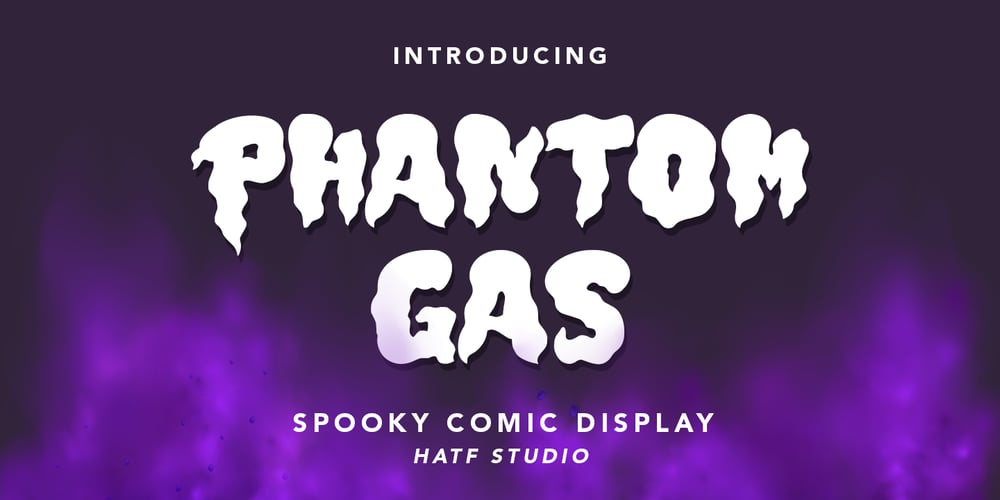
Phantom Gas
Phantom Gas font
Phantom Gas Font Family was designed by Asep Rendi and published by Hatftype. Phantom Gas contains 1 styles and family package options. Is a spooky comic display font with all caps format and distinctive handwritten characters perfect for branding projects, logos, wedding designs, media posts, advertisements, product packaging, product designs, labels, photography, watermarks, invitations, stationery, and any project who need handwritten dishes.Features : Uppercase & Lowercase Multilingual support Number Symbol Punctuation Support in Mac and Windows OS -Support in design applications (photoshop, illustrator, and more) I really hope you enjoy it.